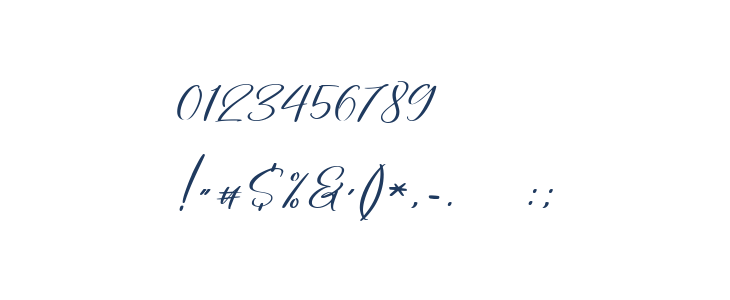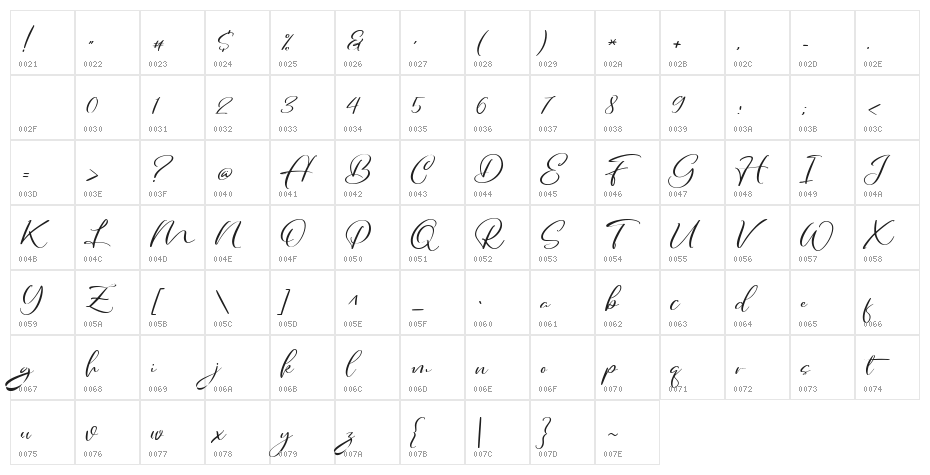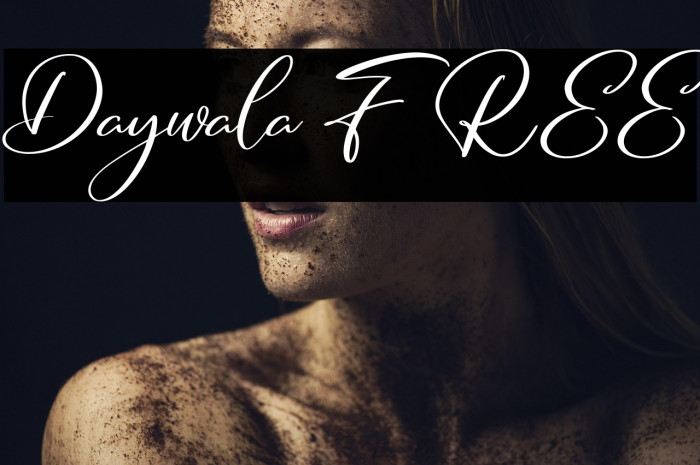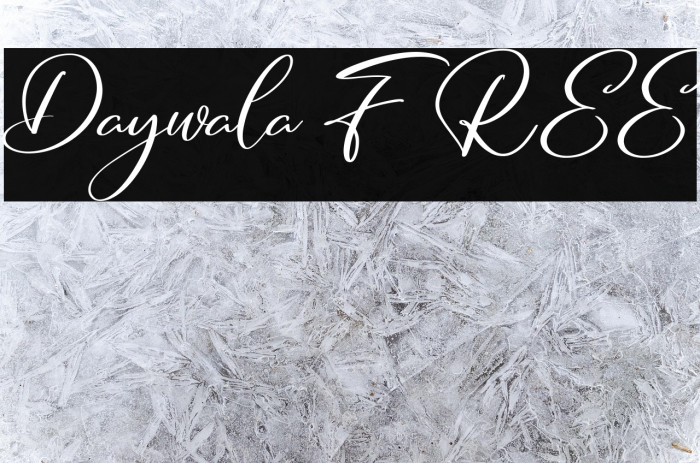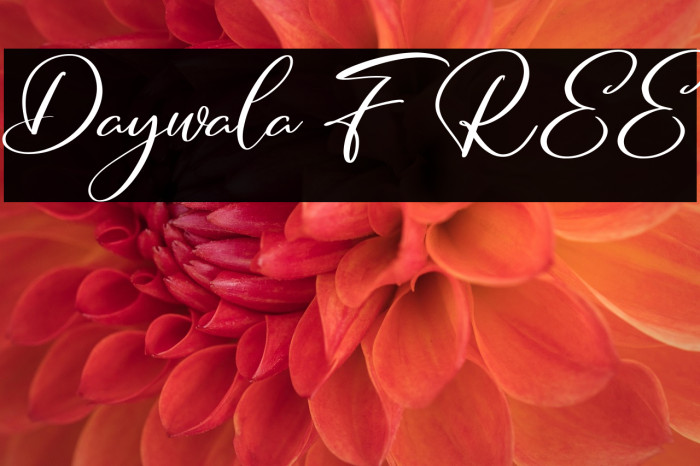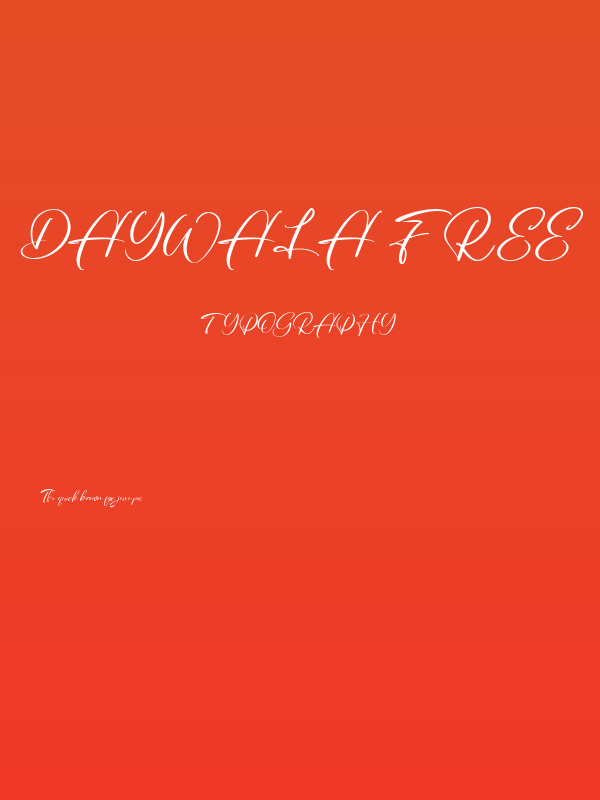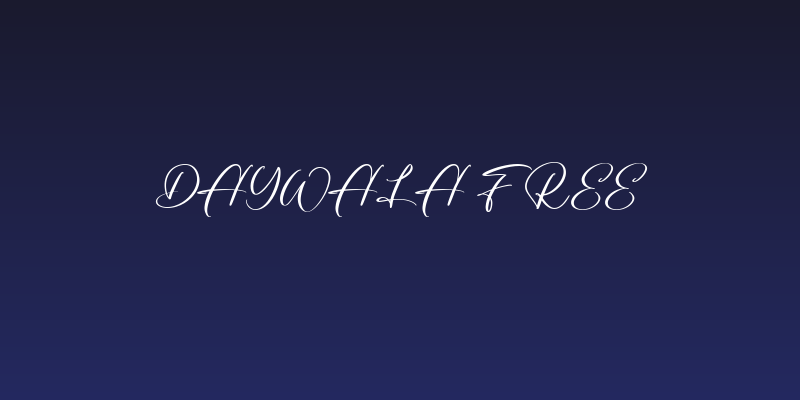
Daywala FREE Font
Daywala FREE Description
This elegant script font features fluid, cursive strokes that convey a sense of sophistication and grace. The uppercase letters are characterized by sweeping curves and flourishes, while the lowercase letters maintain a consistent flow with delicate loops and connections. The numerals are styled to match the overall script aesthetic, ensuring a cohesive look across all characters. Special characters are thoughtfully designed to complement the script style, making this font versatile for various design needs. Its artistic flair and attention to detail make it suitable for projects that require a touch of elegance and creativity.
| Overall Style | Elegant, Artistic |
| Proposed Projects | Ideal for wedding invitations, greeting cards, branding, and elegant logo designs. |